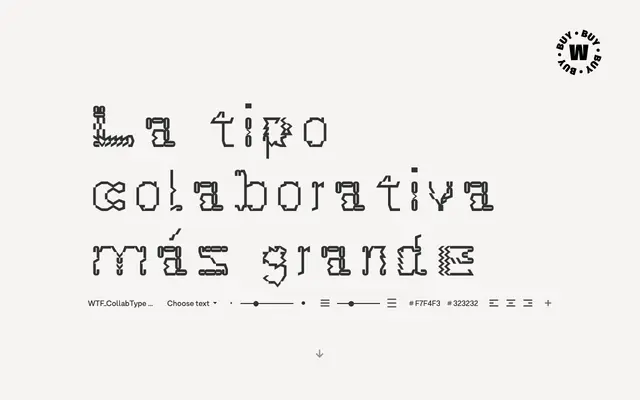
Collab Type
W Type Foundry · WTF Studio · 2021
An ongoing collaborative typeface project by W Type Foundry, assembled from workshops held across nine cities with over 400 contributors from 42 countries.
Started in 2021, the Collabtype project runs workshops in universities and events worldwide, inviting non-specialists to design individual letterforms using both digital and analogue methods. Each session produces a distinct typeface edition, digitalised by the W Type Foundry team, with nine versions released to date covering New York, Barcelona, Santiago, Lisbon and beyond. All editions are available for free download under a personal use licence.
A project-based display typeface assembled from hundreds of individual letter contributions across nine workshops; its expressive, non-uniform character places it firmly in the display category rather than any conventional text classification.